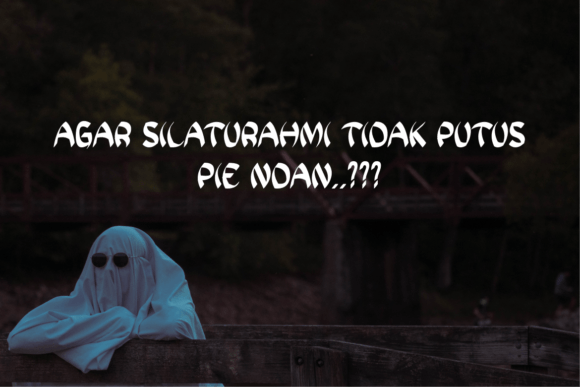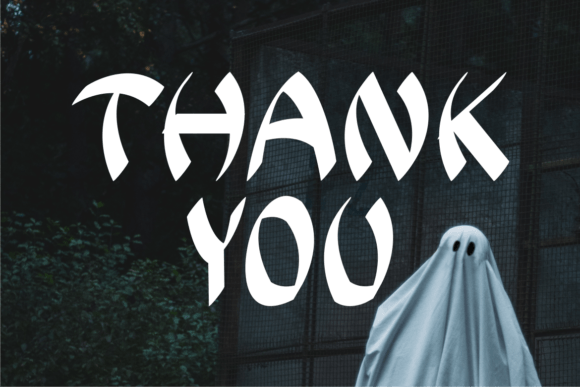
Spooky Japanese Font
Spooky Japanese is a sweet and friendly handwritten font. Its natural and unique style makes it incredibly fitting to a large pool of designs. The only limit is your imagination!